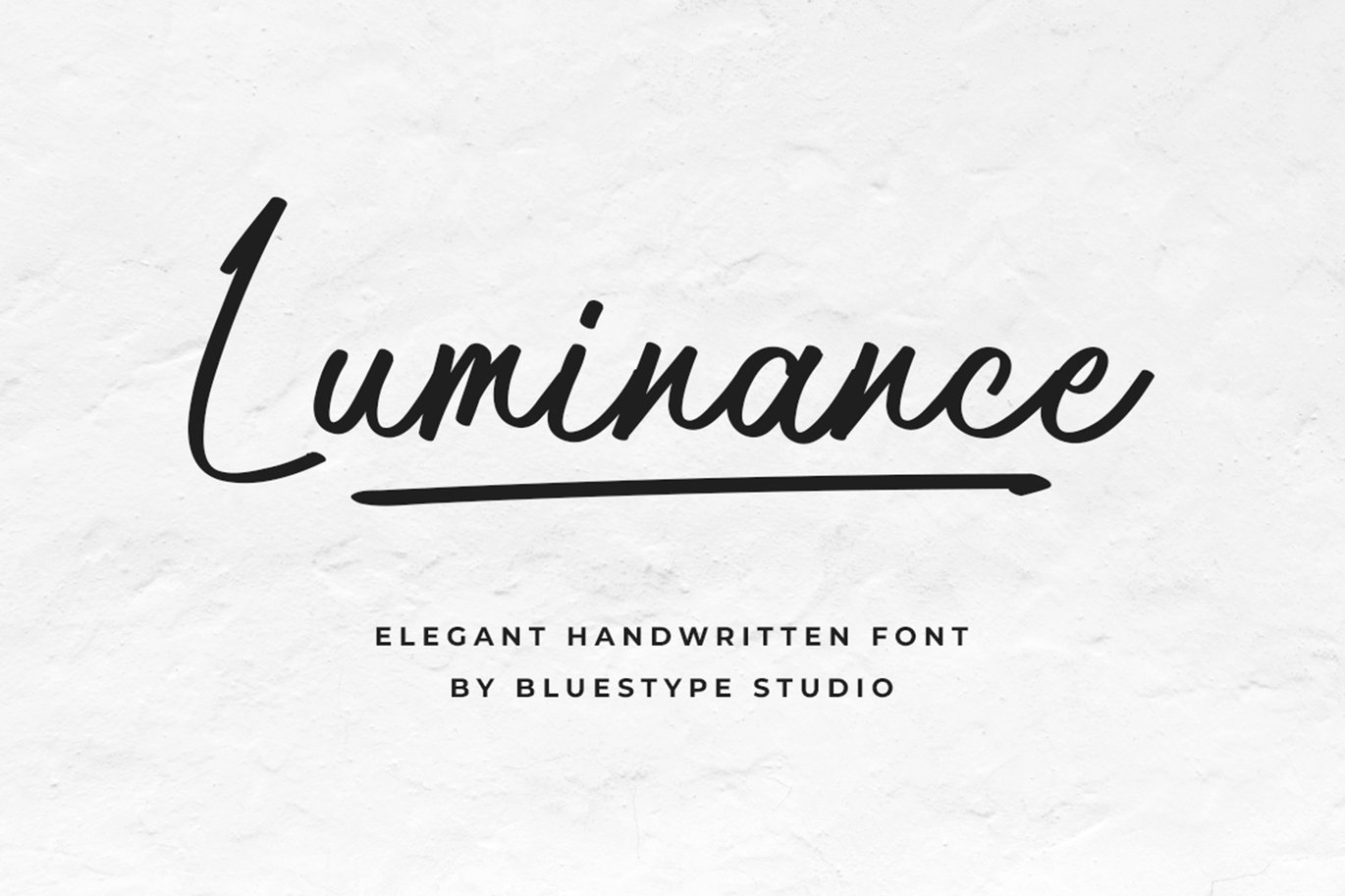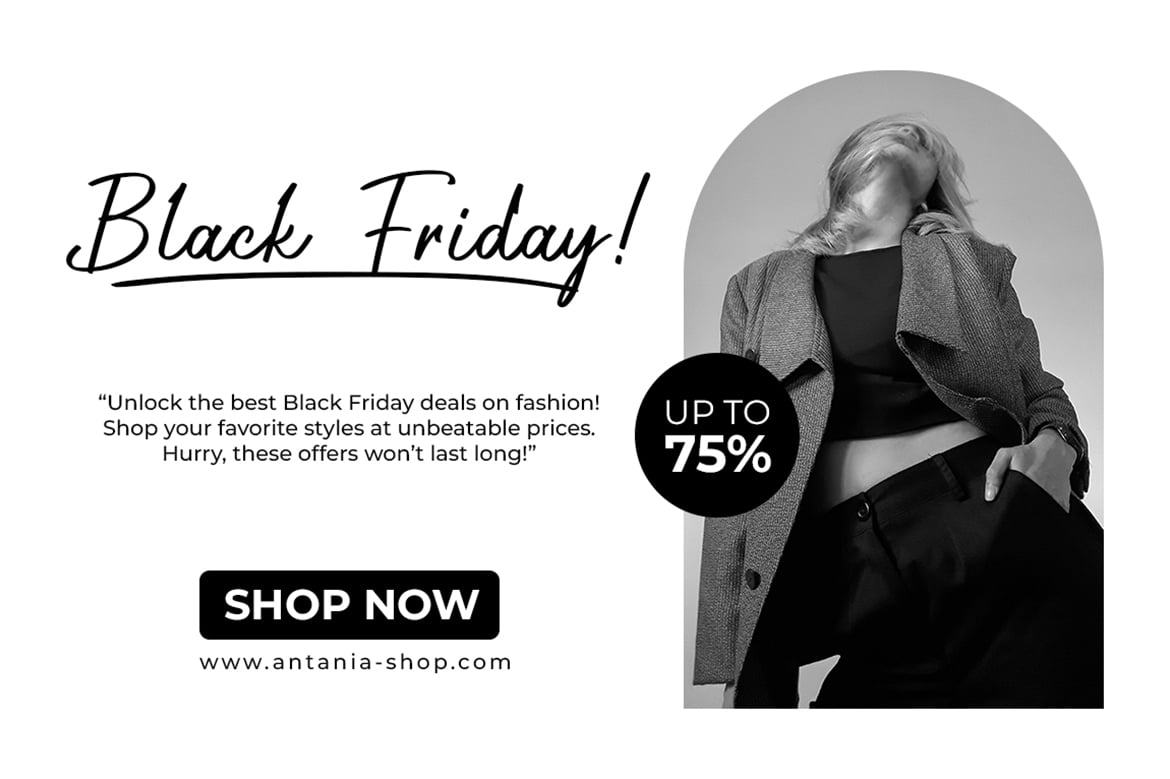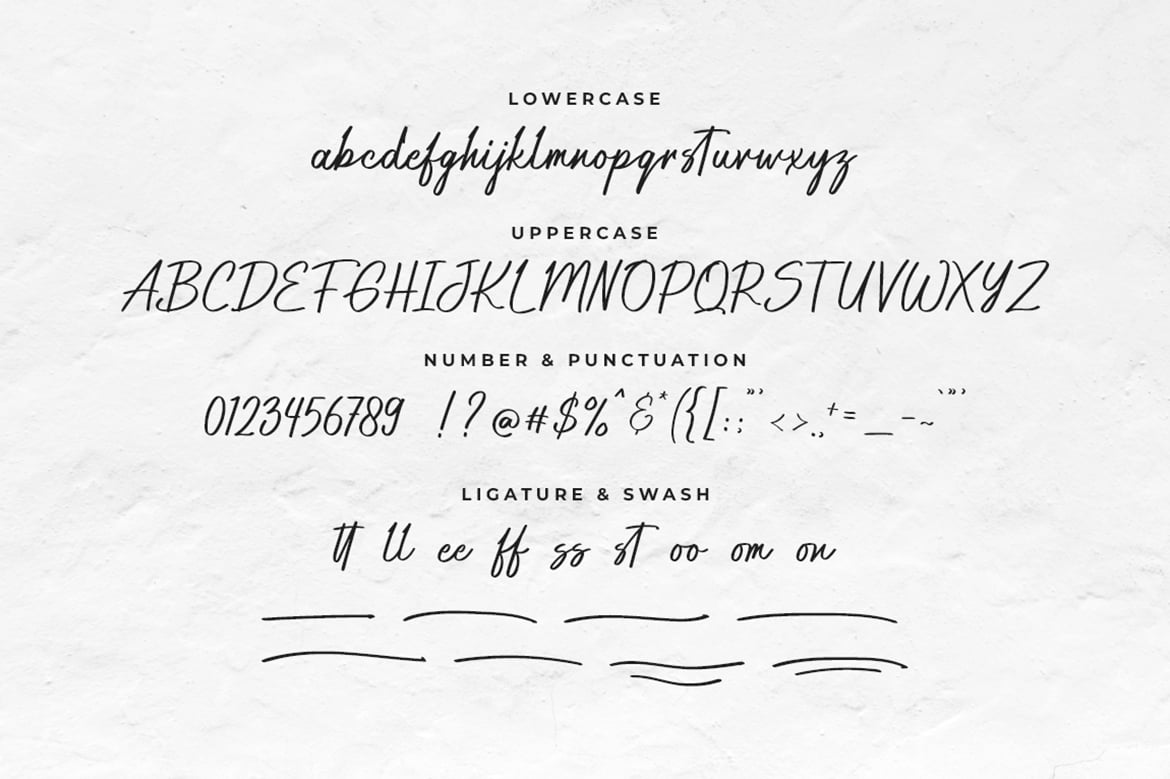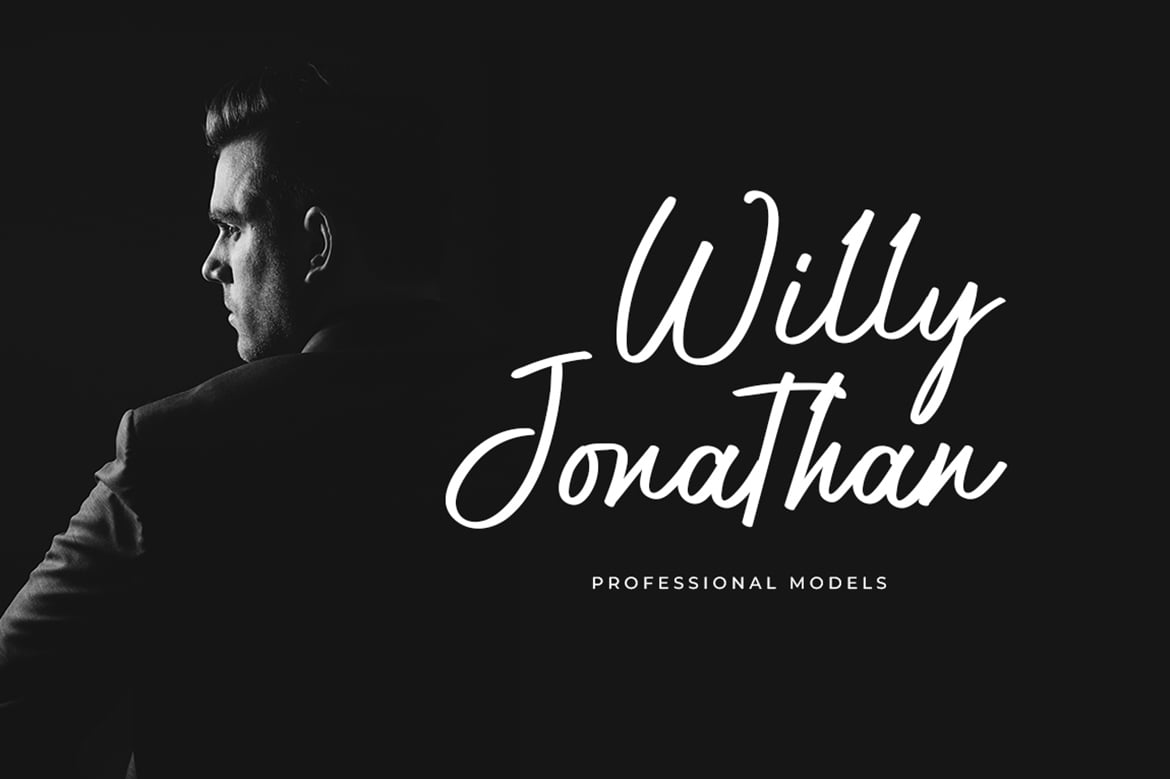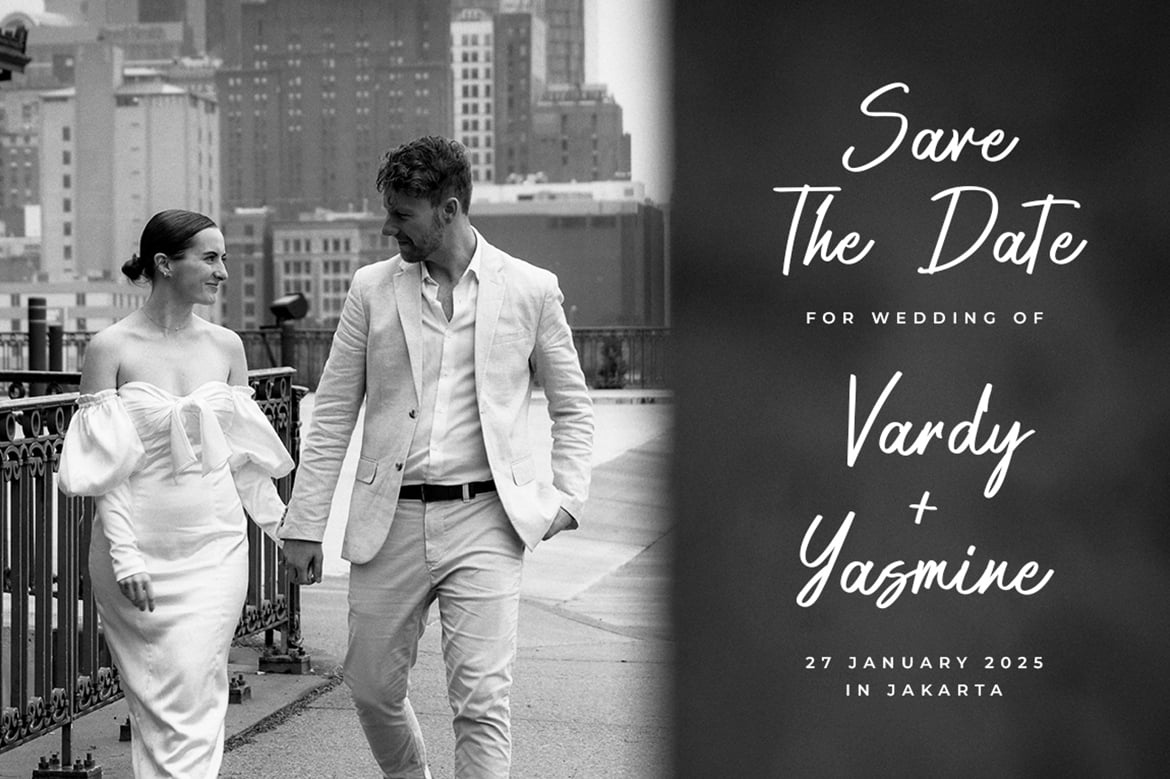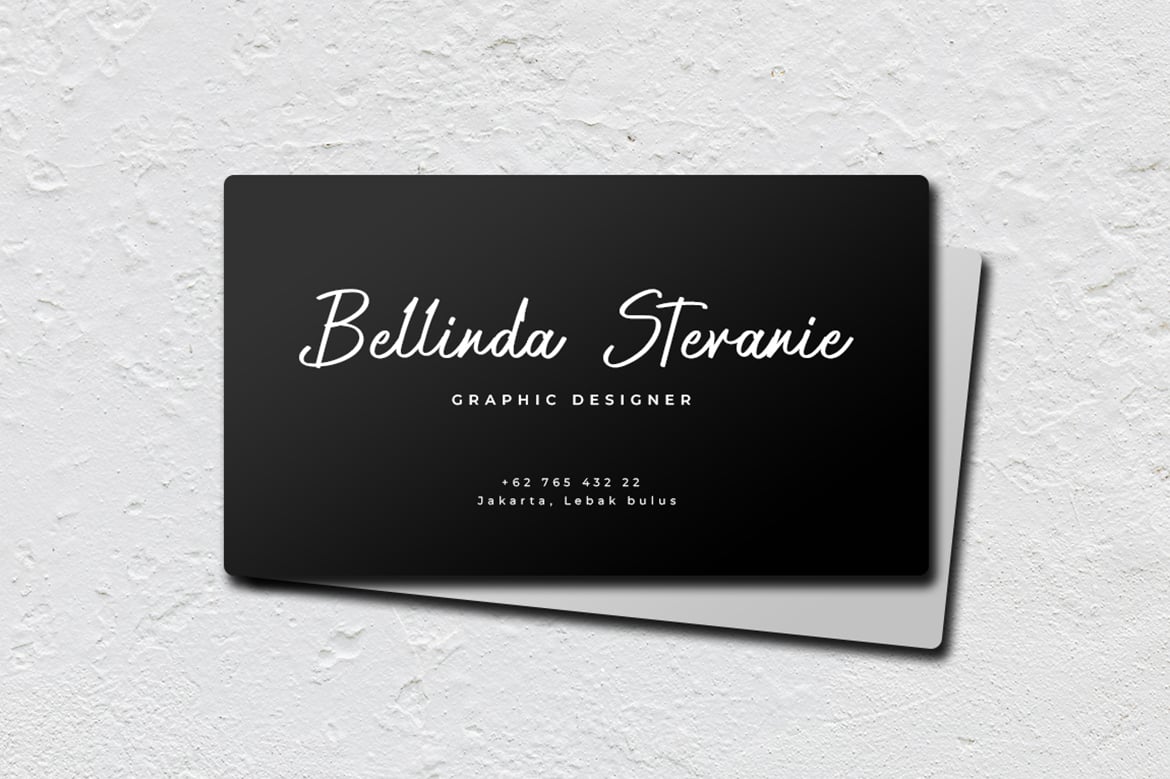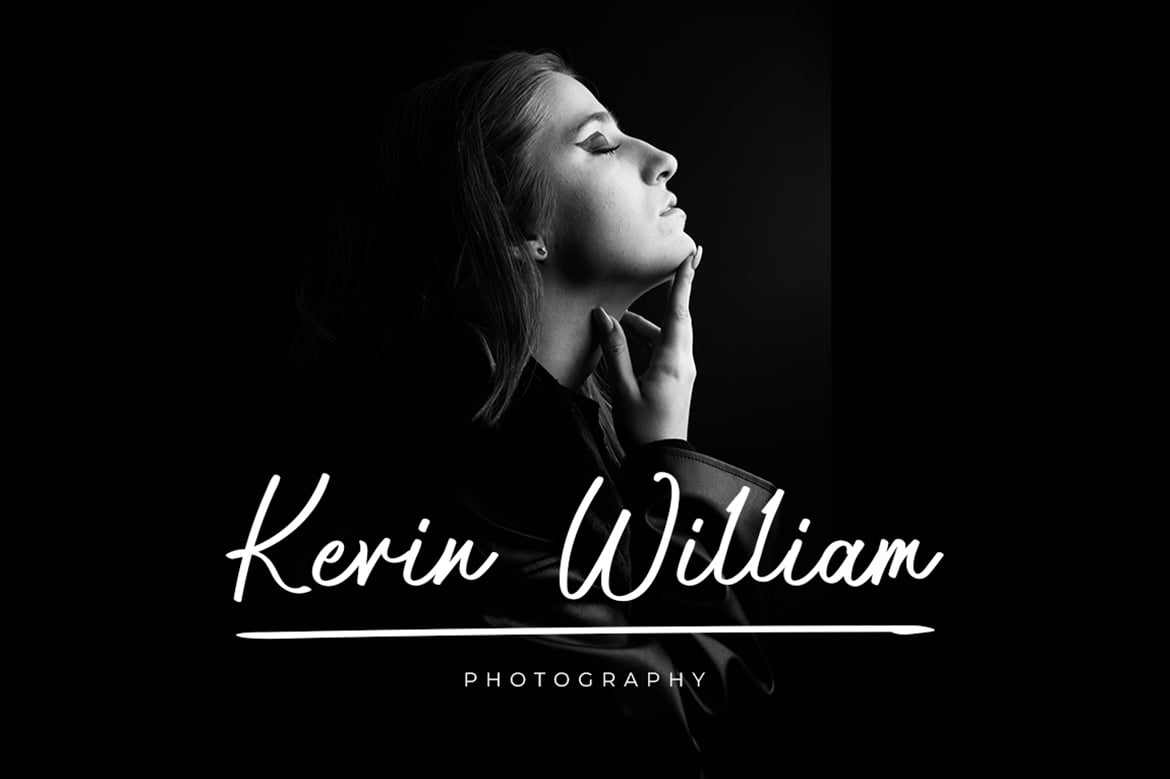
Luminance – Elegant Font
This is our newest product font called Luminance.
Luminance is a sleek and stylish handwritten font that exudes elegance and cool sophistication. Perfect for adding a touch of class to your designs.
- Swash